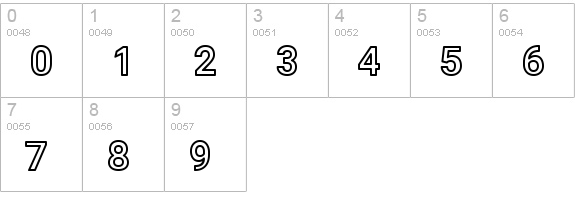
Asimov Outline is a stunning and versatile font that is sure to make a bold statement in any design project. With its sleek and modern aesthetic, this font is perfect for adding a touch of sophistication to logos, headlines, posters, and more. One of the standout features of Asimov Outline is its clean and crisp lines, which really allow the characters to shine. The outline style adds a unique and eye-catching element to any design, making it stand out from the crowd. Whether you're designing for print or digital, this font is sure to captivate your audience and leave a lasting impression. But what sets Asimov Outline apart from other fonts is its accessibility. It is freely available to download at FontsMarket.com, making it a fantastic choice for designers of all levels. Whether you're a seasoned professional or just starting out, this font gives you the opportunity to elevate your work without breaking the bank. With Asimov Outline, you have the freedom to explore and experiment with different design concepts. Its versatility allows it to work seamlessly in a variety of contexts, from elegant and refined to bold and edgy. Whatever your vision may be, this font provides the perfect canvas for bringing it to life. So why wait? Download Asimov Outline today and unlock a world of creative possibilities. Whether you're designing for a client or working on a personal project, this font is sure to become a go-to favorite in your toolkit. With its sleek design and free availability, Asimov Outline is a must-have font for any designer looking to make a lasting impression.